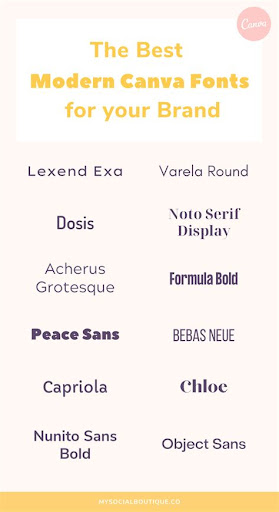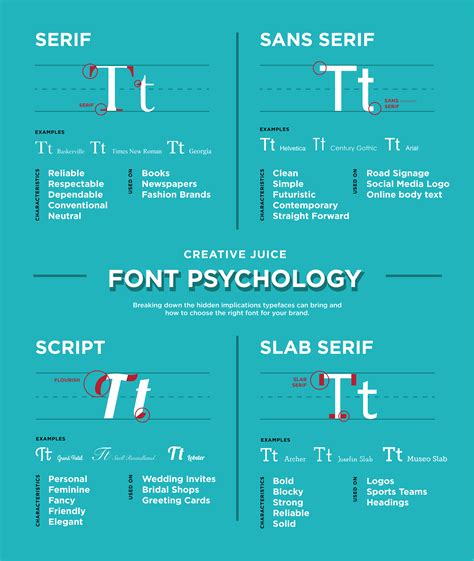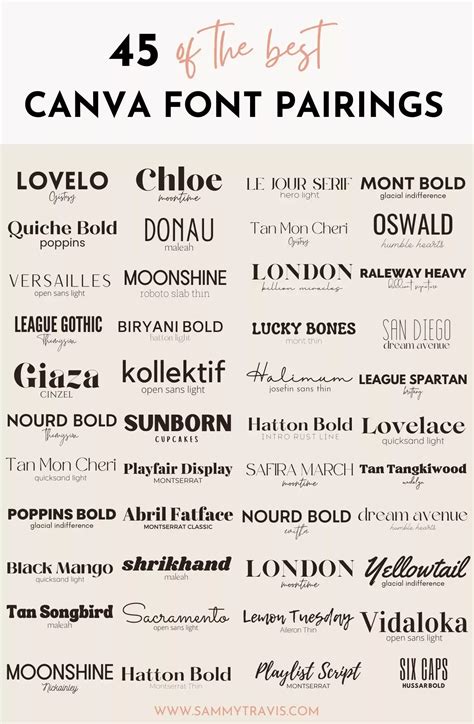
Best Canva Display Fonts for Eye-Catching Designs
Readers, have you ever struggled to find the perfect font for your Canva designs? You want a font that looks amazing, but you also want it to be readable and convey the right message. It's a tough task, but don't worry! We've got you covered.
Choosing the right display font can make or break your design. A bold and striking display font can instantly elevate a simple visual, turning it into a captivating masterpiece. It can grab attention, convey emotion, and leave a lasting impression on viewers. We, as experts in the world of design, have meticulously analyzed the best display fonts available on Canva and are ready to share this knowledge with you.
Choosing the Right Display Font: Key Considerations
1. Readability: Is It Easy on the Eyes?
Readability is crucial for any font, especially display fonts. If your viewers can't easily read your message, your design fails. A display font should be clear and legible, even at small sizes. Look for fonts with good letter spacing, clear stroke widths, and minimal embellishments.
2. Style: What Emotion Do You Want to Convey?
Display fonts come in a wide range of styles, from classic and elegant to quirky and playful. Consider the message you want to convey and choose a font that complements the overall visual style of your design. A bold and dramatic font might be perfect for a powerful message, while a playful and whimsical font might be better suited for a fun and lighthearted design.
3. Versatility: Can You Use It for Multiple Projects?
Canva offers a vast library of display fonts, but it's wise to choose fonts that are versatile enough for different projects. Look for fonts that can be used for headings, titles, logos, and even short body text. This will save you time and effort in the long run.
Popular Canva Display Fonts: A Comprehensive Guide
1. Serif Fonts: Adding Elegance and Classic Charm
Serif fonts have small decorative strokes at the ends of letters, giving them a more traditional and elegant look. They are often associated with sophistication, trustworthiness, and authority. Some popular serif display fonts available on Canva include:
- Playfair Display
- Garamond
- Roboto Slab
- Crimson Text
- Merriweather
2. Sans-Serif Fonts: Modernity and Simplicity
Sans-serif fonts lack the decorative strokes of serif fonts, giving them a clean and modern look. They are often associated with professionalism, clarity, and simplicity. Some popular sans-serif display fonts available on Canva include:
- Arial Black
- Helvetica
- Open Sans
- Oswald
- Montserrat
3. Script Fonts: Adding Handwritten Charm
Script fonts mimic handwritten styles, giving your designs a personal and elegant touch. They are often used for formal invitations, wedding stationery, and handwritten logos. Some popular script display fonts available on Canva include:
- Dancing Script
- Sacramento
- Allura
- Great Vibes
- Pacifico
4. Decorative Fonts: Creative and Eye-Catching
Decorative fonts, often referred to as display fonts, are characterized by their unique and artistic designs. They add personality and visual interest to your designs. Some popular decorative display fonts available on Canva include:
- Lobster Two
- Bangers
- Architects Daughter
- Cormorant Garamond
- Bebas Neue
Display Font Combinations: A Winning Formula
Just like pairing different colors and patterns, you can create a visually stunning effect by combining different display fonts. Here are some tips for creating harmonious font pairings:
- Contrast and Complement: Consider pairing a serif font with a sans-serif font to create a visually appealing contrast and complement each other's characteristics.
- Weight and Size: Use a bold, heavy display font for headings or titles and a lighter weight font for body text.
- Experiment and Explore: Don't be afraid to break the rules and experiment with different font combinations. Canva's font library allows you to try out various pairings and see what works best for your designs.
Table of Best Canva Display Fonts Based on Design Style
| Design Style | Best Display Fonts |
|---|---|
| Minimalist and Modern | Helvetica, Open Sans, Montserrat |
| Elegant and Classic | Playfair Display, Garamond, Merriweather |
| Playful and Fun | Lobster Two, Bangers, Architects Daughter |
| Handwritten and Personal | Dancing Script, Sacramento, Allura |
| Bold and Dramatic | Arial Black, Oswald, Bebas Neue |
Frequently Asked Questions about Canva Display Fonts
1. How do I choose the best display font for my Canva design?
The best display font for your Canva design depends on the message you want to convey, the target audience, and the overall style of your design. Consider factors such as readability, style, and versatility when choosing a font.
2. Are there any rules for combining different display fonts?
While there are no hard and fast rules for combining display fonts, it's best to use a combination that creates visual harmony and complements each other's characteristics. Consider factors such as contrast, weight, and size when pairing fonts.
3. Can I use a decorative font for body text?
While decorative fonts are eye-catching, they are generally not suitable for long stretches of body text. They are best used for headings, titles, and other short text elements. Using a decorative font for body text can make the content difficult to read.